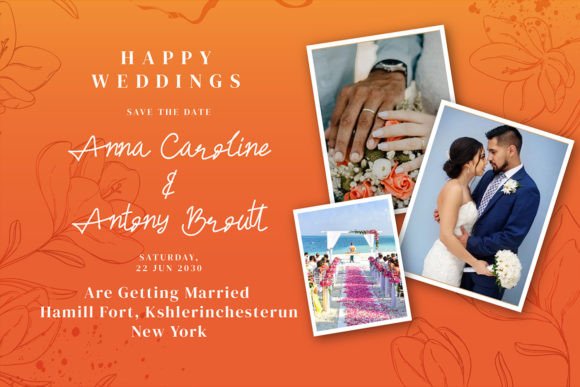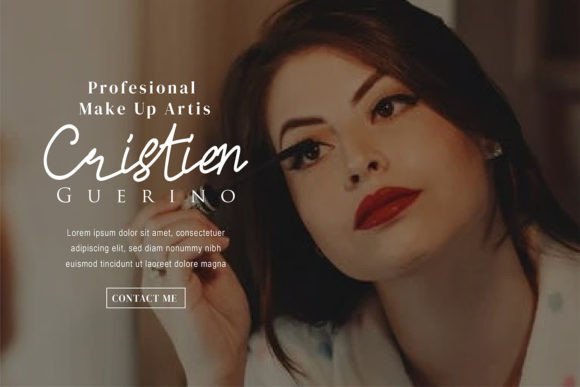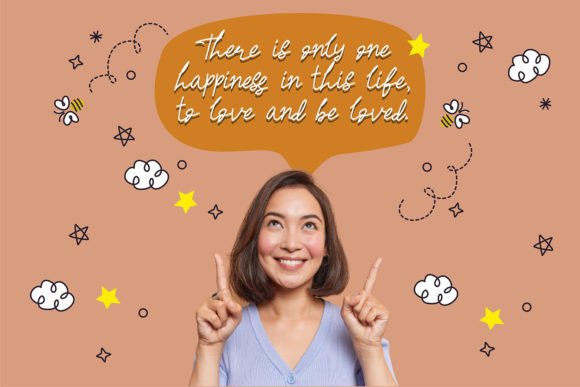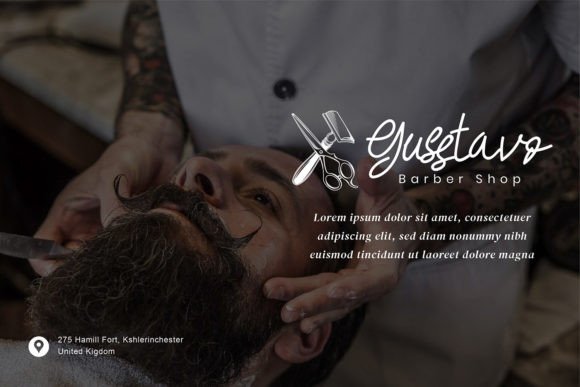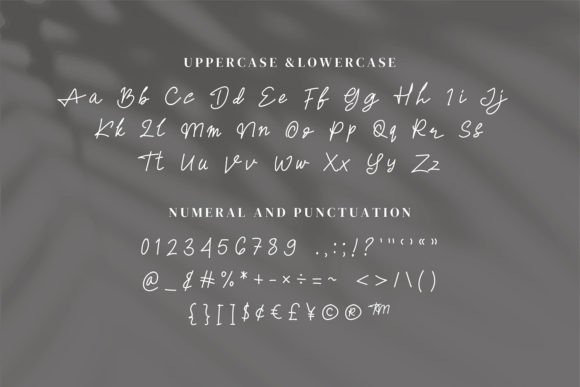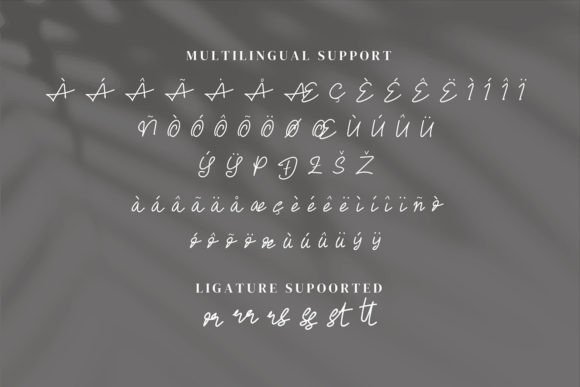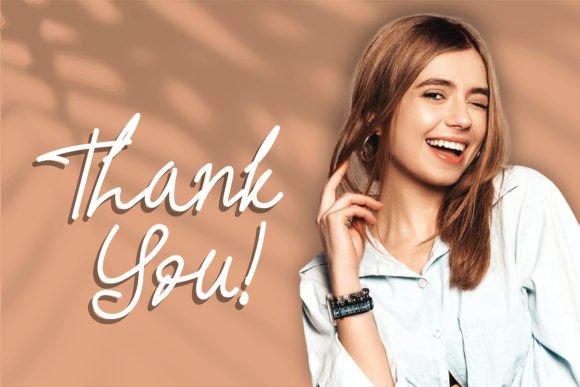
Westly Rider Font
About Westly Rider Font
Westly Rider is a modern and casually styled script font that adds a touch of beauty to a variety of designs, particularly those that demand a personalized and distinctive touch. Ideal for wedding invitations, thank-you cards, greeting cards, logos, and more, this font brings a contemporary yet approachable feel to your projects.
The versatility of Westly Rider lies in its modern script style, which seamlessly blends elegance with a casual vibe. Whether you’re crafting invitations for special occasions or creating a unique logo for your brand, this font offers a personalized and aesthetically pleasing option.
Embrace the contemporary charm of Westly Rider as you incorporate it into your designs. Watch as it enhances the overall visual appeal, making your creations stand out with a modern and casual elegance. Let Westly Rider be the font that adds a personalized and stylish element to your various projects, creating a lasting impression on your audience.